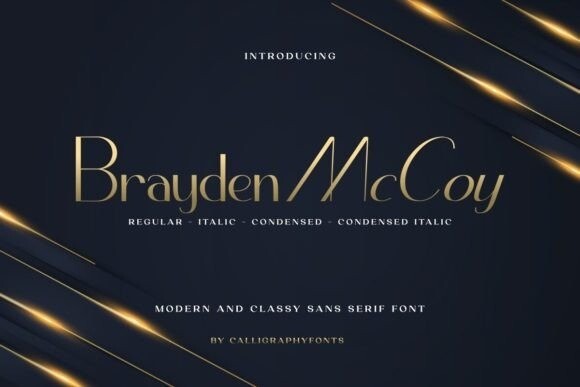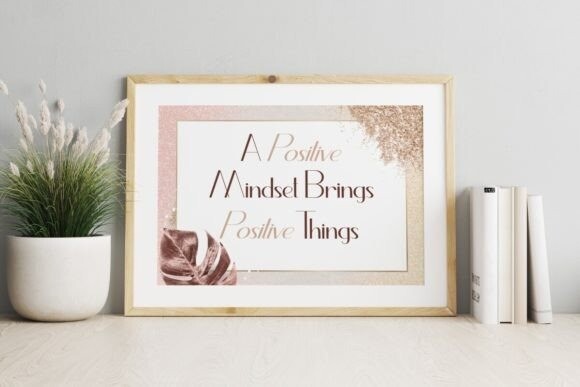
Brayden Mccoy Font
Brayden McCoy Font is a modern sans serif font packed in four classy styles: Regular, Italic, Condensed, and Condensed Italic, exclusively created by CalligraphyFonts. It will be suitable for any industry, such as accessories, beauty clinics, clothing brands, handicrafts, jewelry, publishing, real estate, restaurants, writers, and anything that requires a look that radiates elegance.